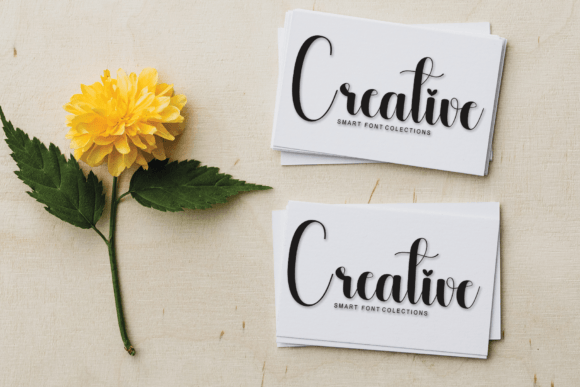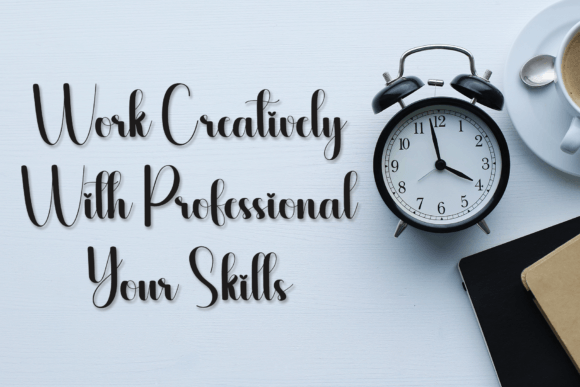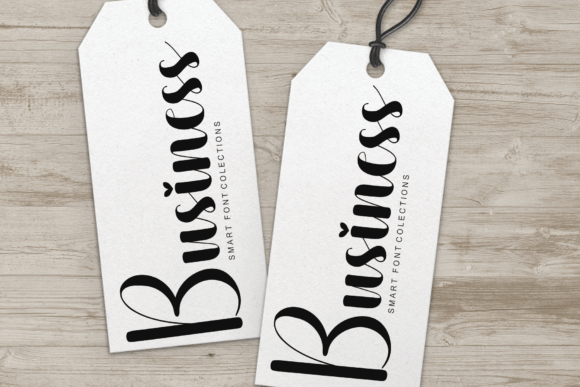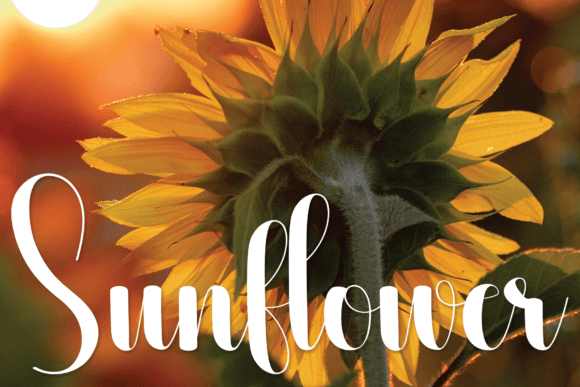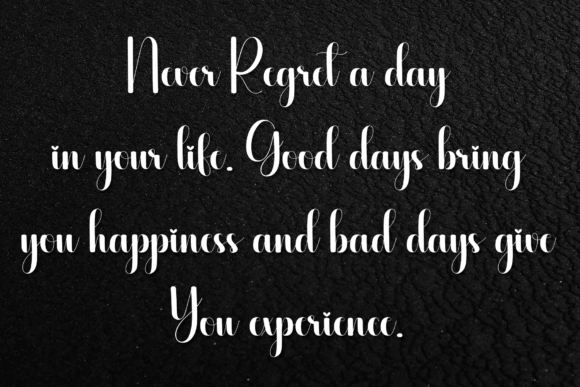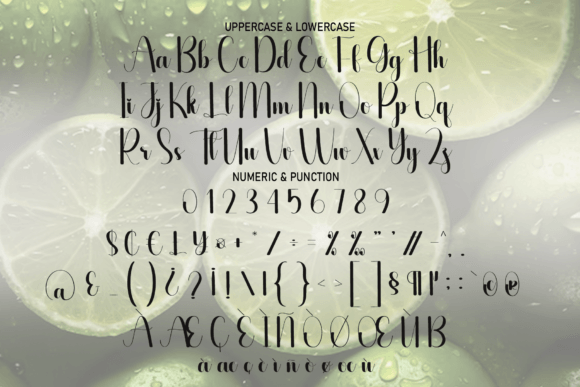
Glaring Font: Elevate Your Designs with Elegant Handwritten Style
Are you tired of using the same old fonts in your designs? Do you want to add a touch of elegance and personality to your projects? Look no further than the Glaring Font, a beautifully handwritten font that’s perfect for a wide range of applications. In this article, we’ll explore the features and benefits of Glaring Font, and show you how to use it to take your designs to the next level.
What is Glaring Font?
Glaring Font is a unique and stylish handwritten font that’s designed to add a touch of sophistication and elegance to your designs. With its flowing lines and delicate curves, this font is perfect for creating beautiful and eye-catching text that stands out from the crowd. Whether you’re designing a wedding invitation, a social media post, or a product label, Glaring Font is the perfect choice.
Features of Glaring Font
So what makes Glaring Font so special? Here are just a few of its key features:
- Elegant Handwritten Style: Glaring Font has a beautiful, flowing handwritten style that’s perfect for creating elegant and sophisticated text.
- Versatile: This font is perfect for a wide range of applications, from wedding invitations and social media posts to product packaging and labels.
- Easy to Read: Despite its elegant style, Glaring Font is still easy to read, making it perfect for use in body text as well as headlines.
- Unique: With its delicate curves and flowing lines, Glaring Font is a truly unique font that’s sure to stand out from the crowd.
Uses for Glaring Font
So what can you use Glaring Font for? The possibilities are endless! Here are just a few ideas to get you started:
- Wedding Invitations: Add a touch of elegance and sophistication to your wedding invitations with Glaring Font.
- Social Media Posts: Use Glaring Font to create eye-catching social media posts that stand out from the crowd.
- Product Packaging: Add a personal touch to your product packaging with Glaring Font.
- Labels: Use Glaring Font to create beautiful and elegant labels for your products or gifts.
- Photography: Add a touch of elegance to your photography with Glaring Font watermarks or overlays.
- Invitations: Use Glaring Font to create beautiful and elegant invitations for any occasion.
- Stationery: Add a personal touch to your stationery with Glaring Font.
Tips for Using Glaring Font
Here are a few tips for using Glaring Font in your designs:
- Use it sparingly: Glaring Font is a statement font, so use it sparingly to add emphasis and elegance to your designs.
- Pair it with a simple font: Pair Glaring Font with a simple font to create a beautiful contrast and add visual interest to your designs.
- Experiment with colors: Glaring Font looks beautiful in a range of colors, so don’t be afraid to experiment and find the perfect hue for your design.
In conclusion, Glaring Font is a beautiful and elegant handwritten font that’s perfect for adding a touch of sophistication and personality to your designs. With its versatile style and wide range of uses, this font is a must-have for any designer or crafter looking to elevate their projects. So why wait? Download Glaring Font today and start creating stunning designs that stand out from the crowd!